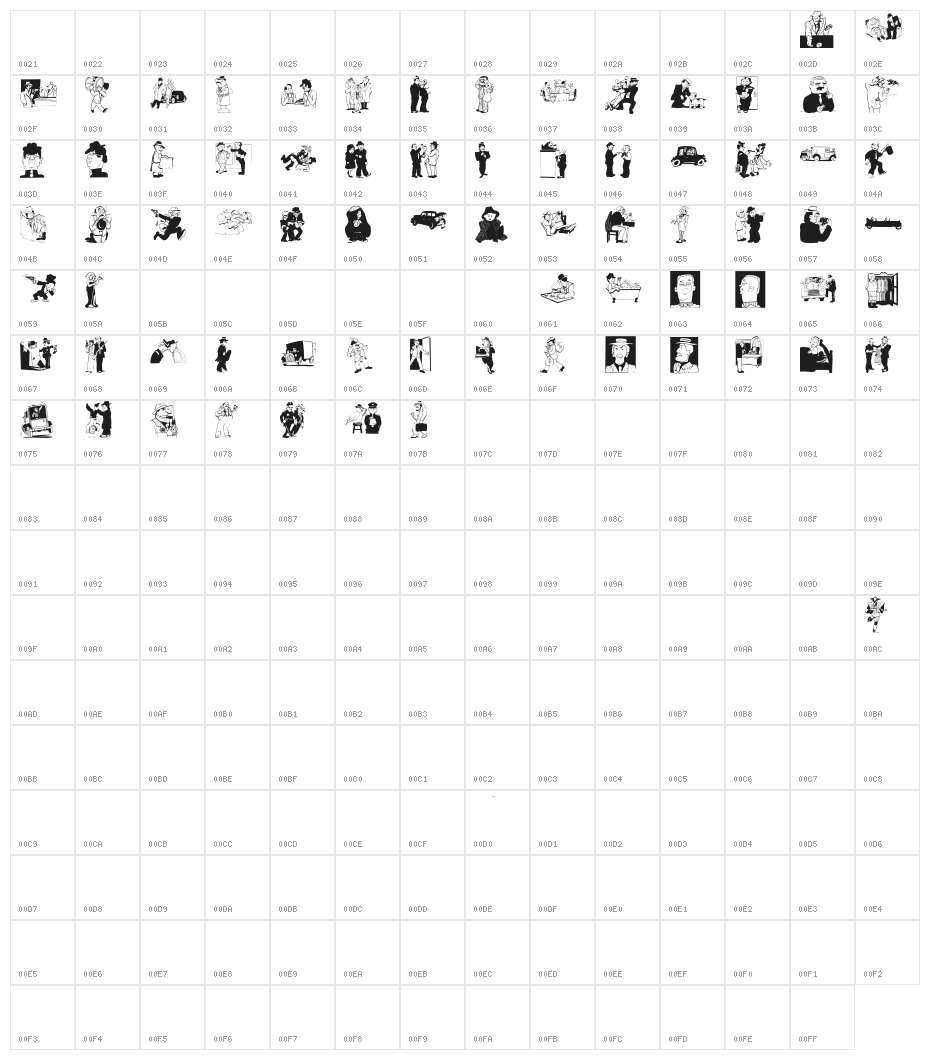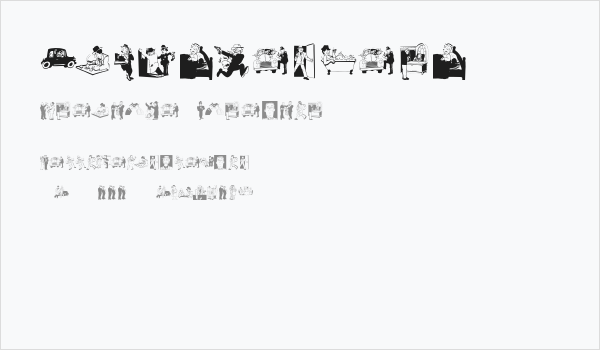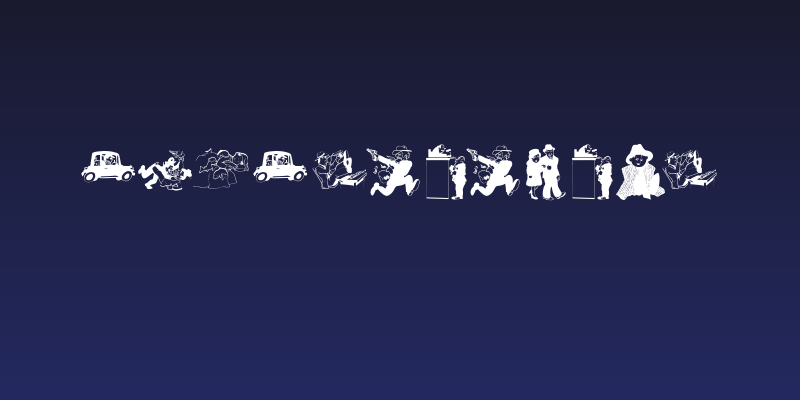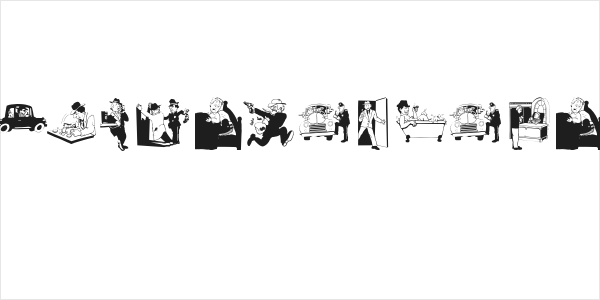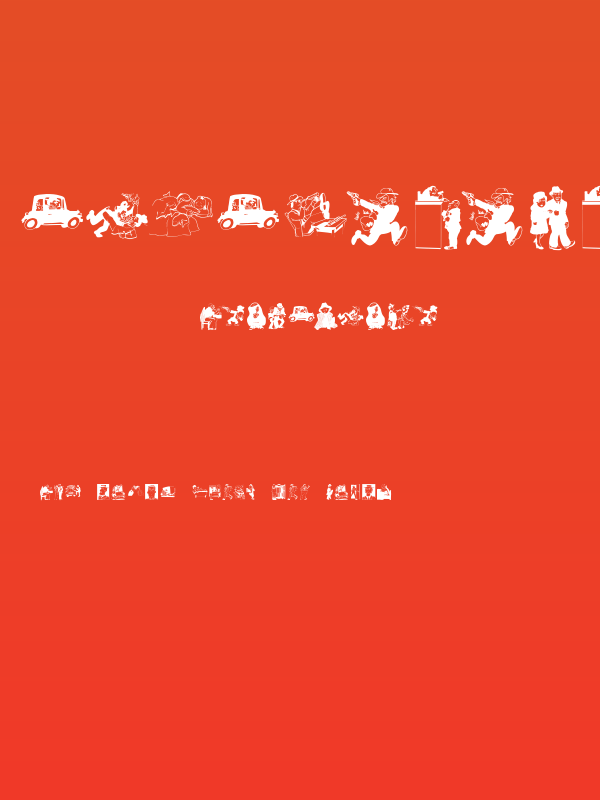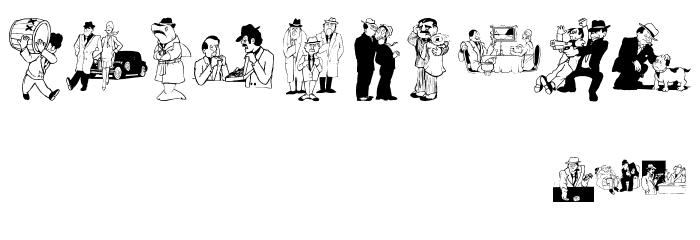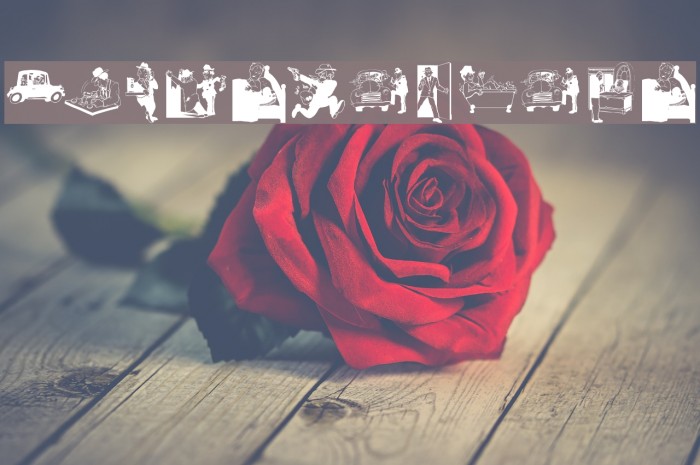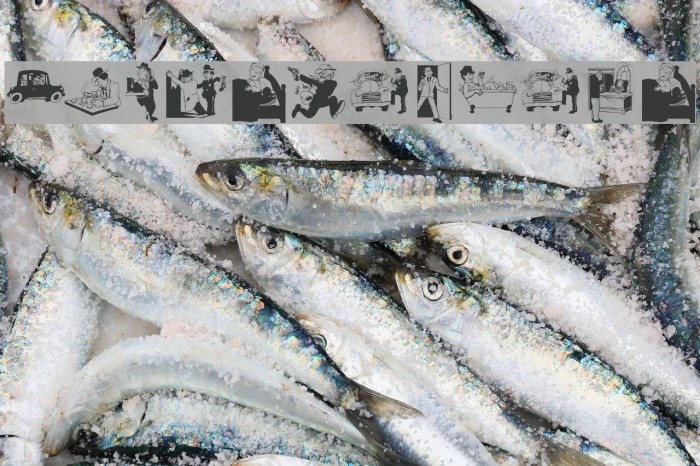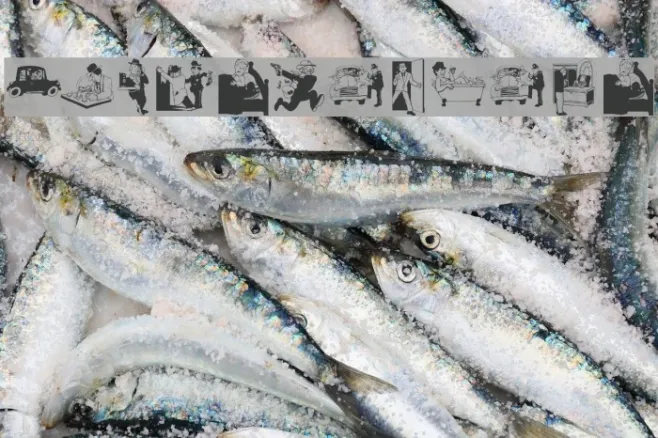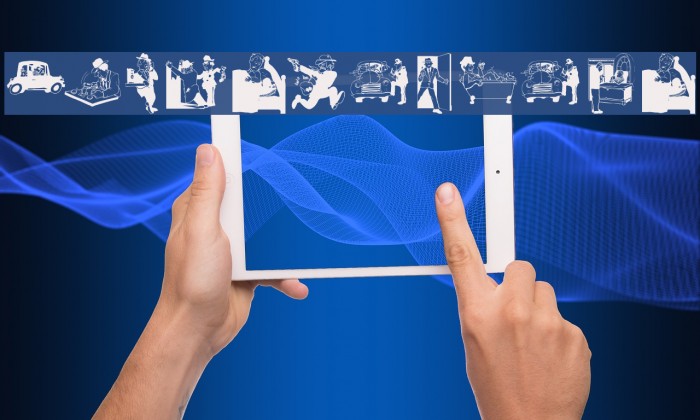
GangsMembers Font
GangsMembers Description
A highly detailed, illustrative display font composed of cartoon-style gangster and mobster characters in various scenes, each glyph representing a unique vignette rather than a traditional letterform. The style is playful, with exaggerated features and dynamic poses, evoking a vintage comic or noir aesthetic.
| Overall Style | Decorative, Vintage, Comic |
| Use Case | Headlines, Logos, Themed graphics |
| Proposed Projects | Posters, themed party invitations, comic book titles, novelty branding, entertainment industry graphics. |